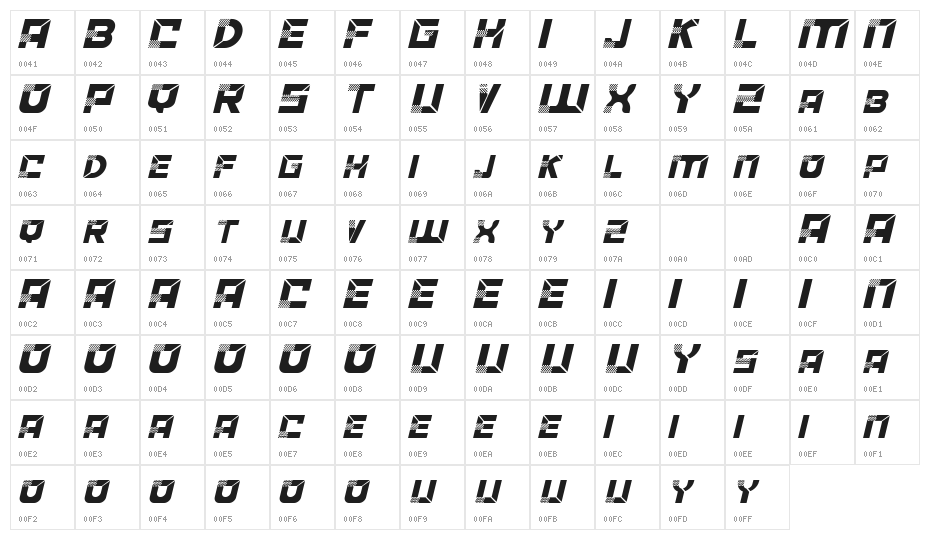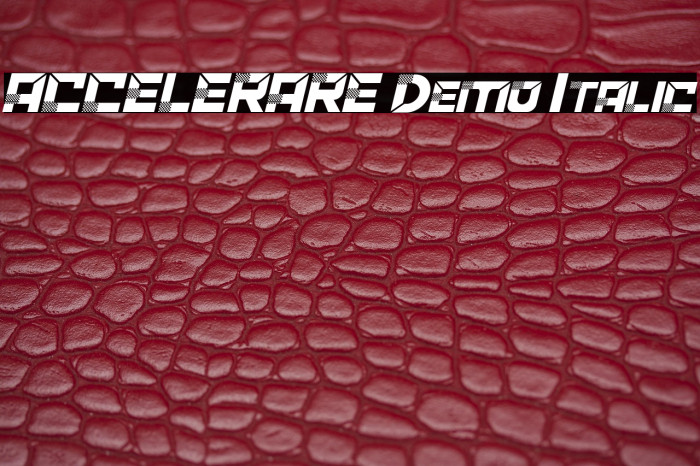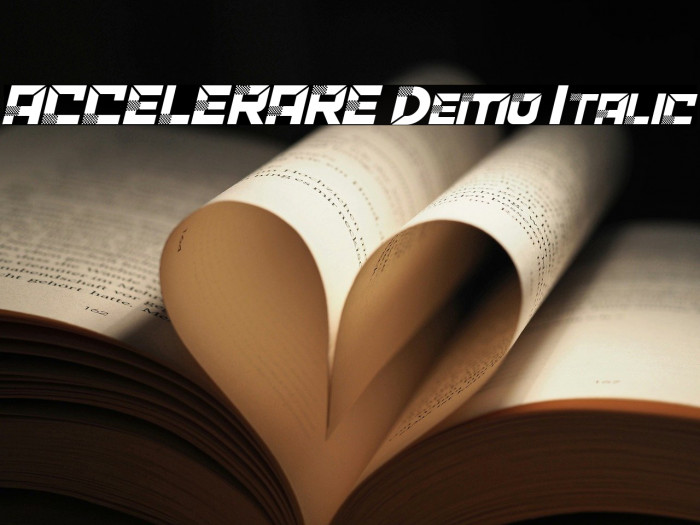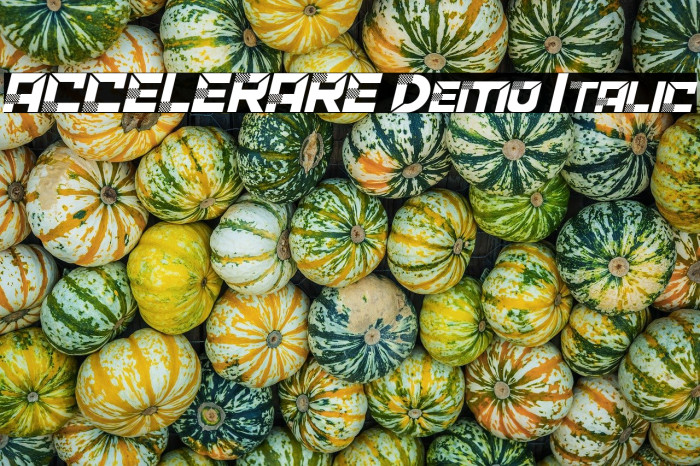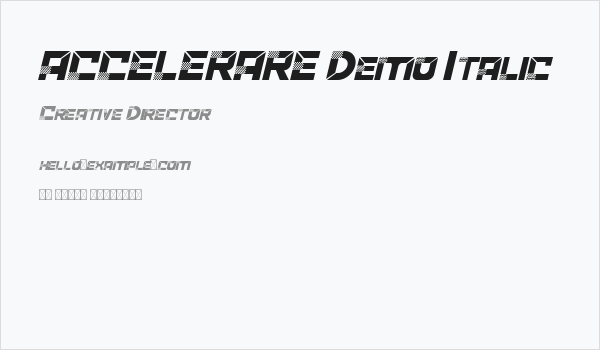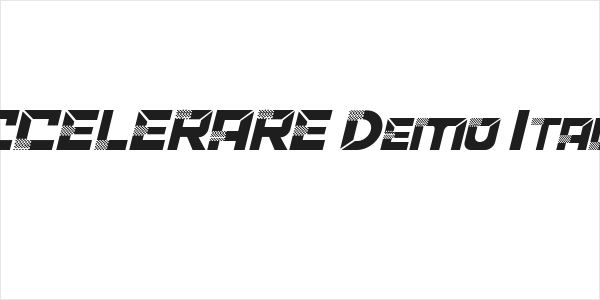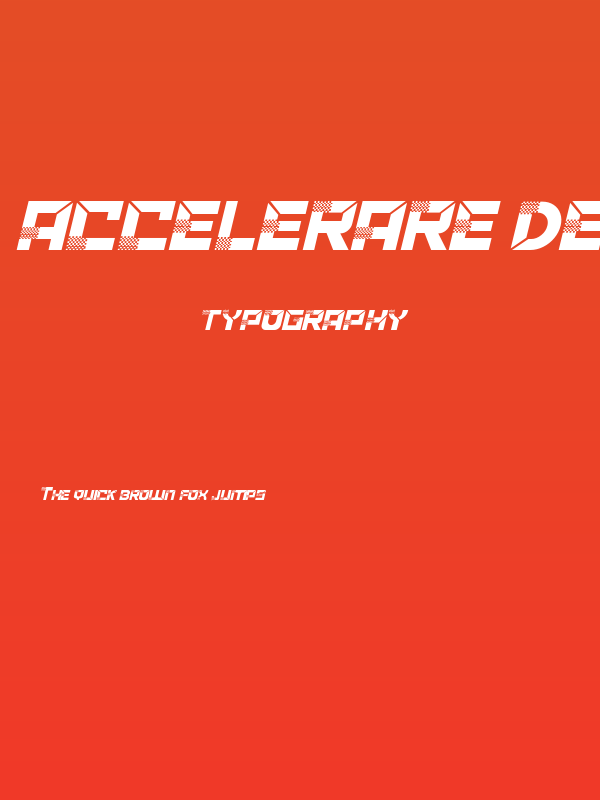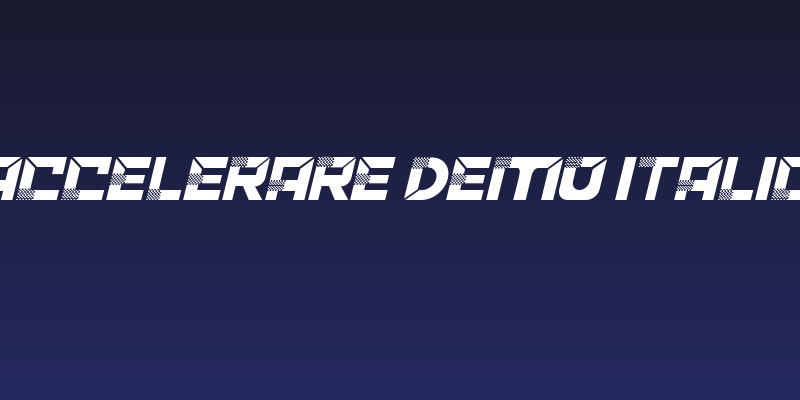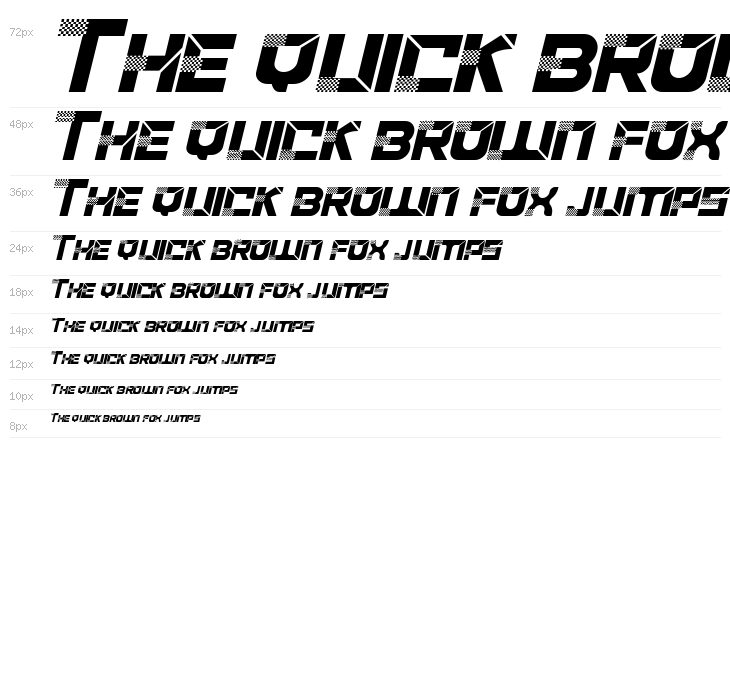
ACCELERARE Demo Italic Font
ACCELERARE Demo Italic Description
This font features a bold, dynamic style with a strong geometric influence. The characters are italicized, giving a sense of motion and speed, which is enhanced by the use of diagonal lines and sharp angles. The design incorporates a unique pattern within the letters, adding a textured, almost digital feel. The uppercase letters are prominent and commanding, making them ideal for attention-grabbing headlines or titles. The overall appearance is modern and futuristic, suitable for projects that require a cutting-edge, tech-savvy look.
| Overall Style | Modern, Futuristic |
| Proposed Projects | Ideal for tech branding, sports logos, racing themes, and modern advertising campaigns. |